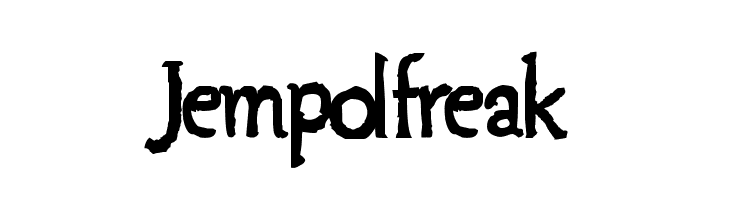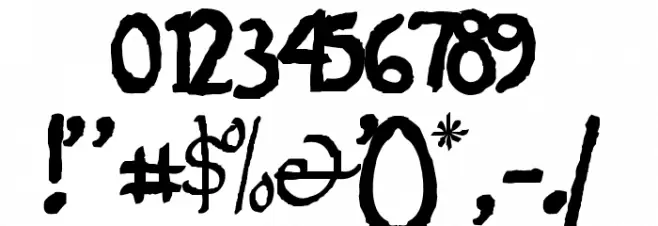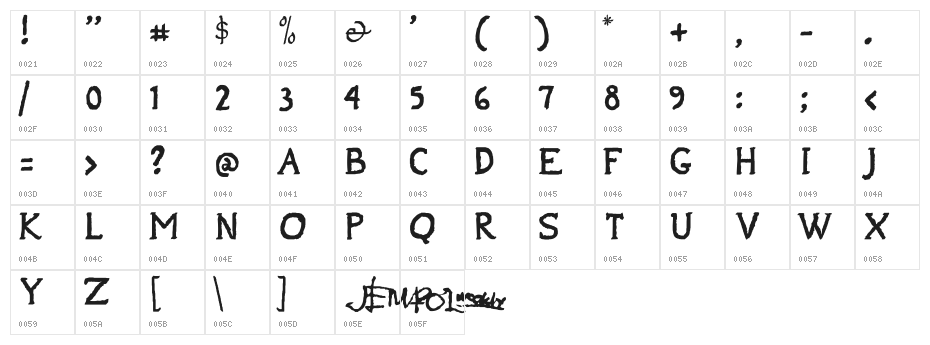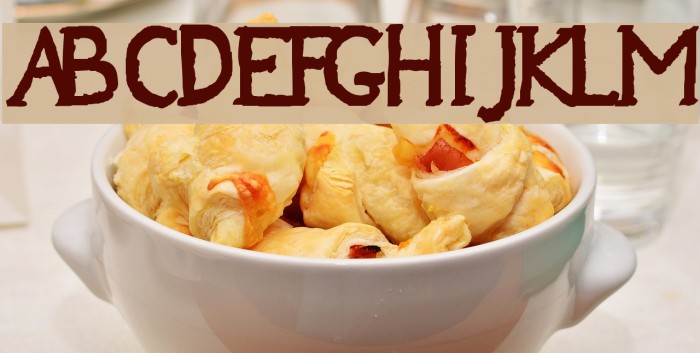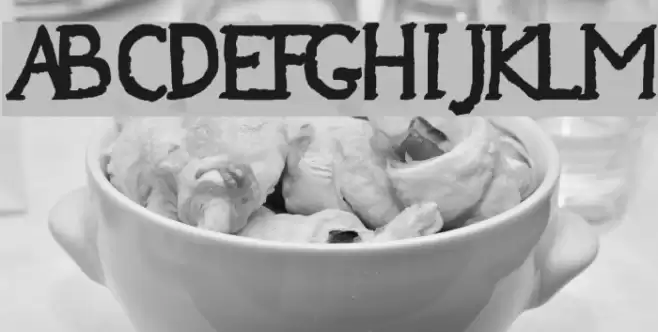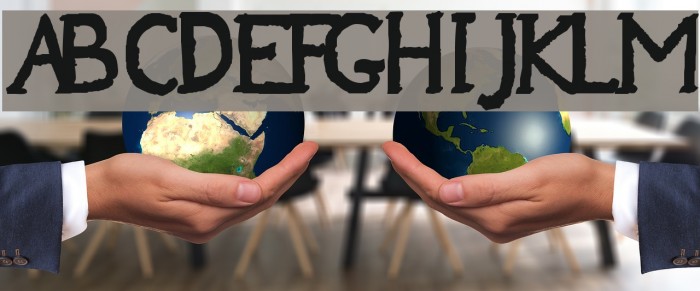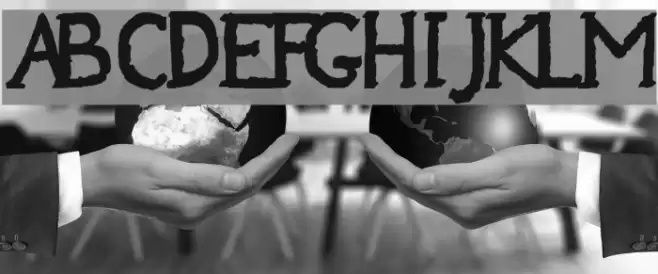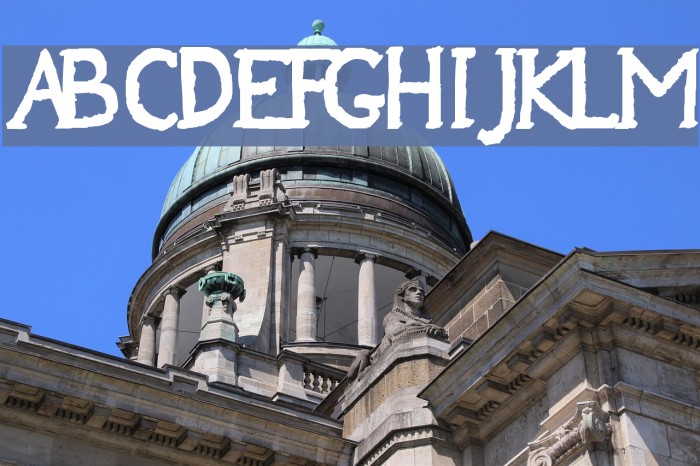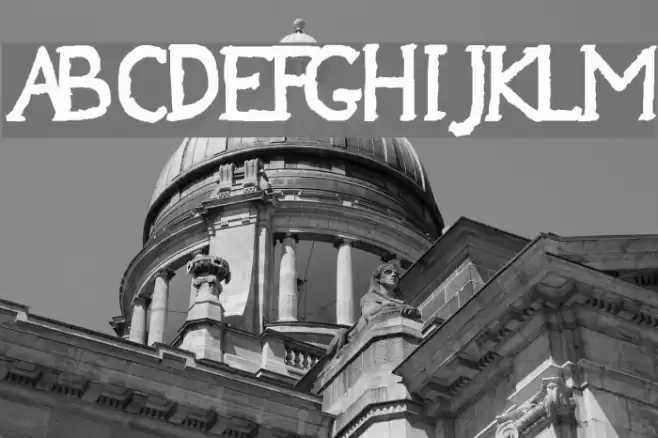
Jempolfreak Font
Jempolfreak Description
This font exhibits a bold and expressive style with a hand-drawn appearance. The characters are unevenly shaped, giving them a dynamic and artistic feel. The uppercase letters are robust and slightly irregular, while the lowercase letters maintain a consistent yet quirky design. Numbers and special characters follow the same stylistic approach, adding to the font's unique personality. The overall design is reminiscent of a playful and creative script, suitable for projects that require a touch of individuality and flair.